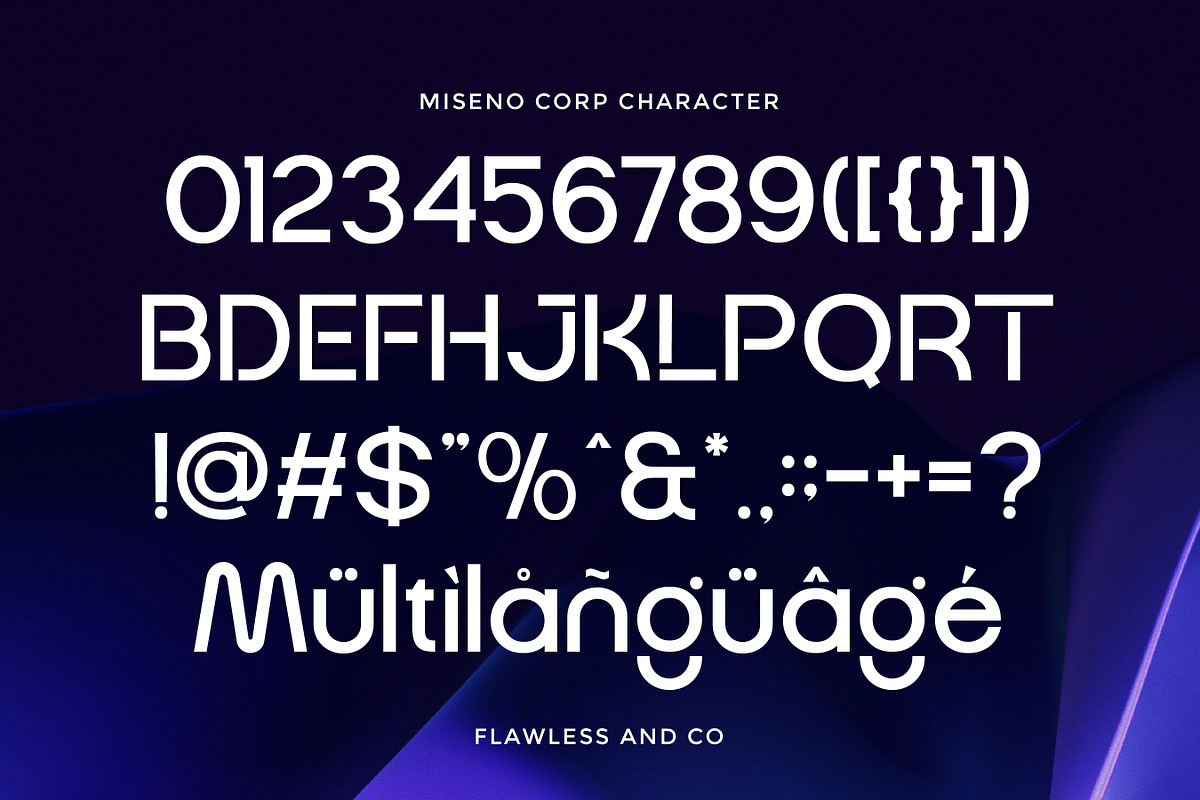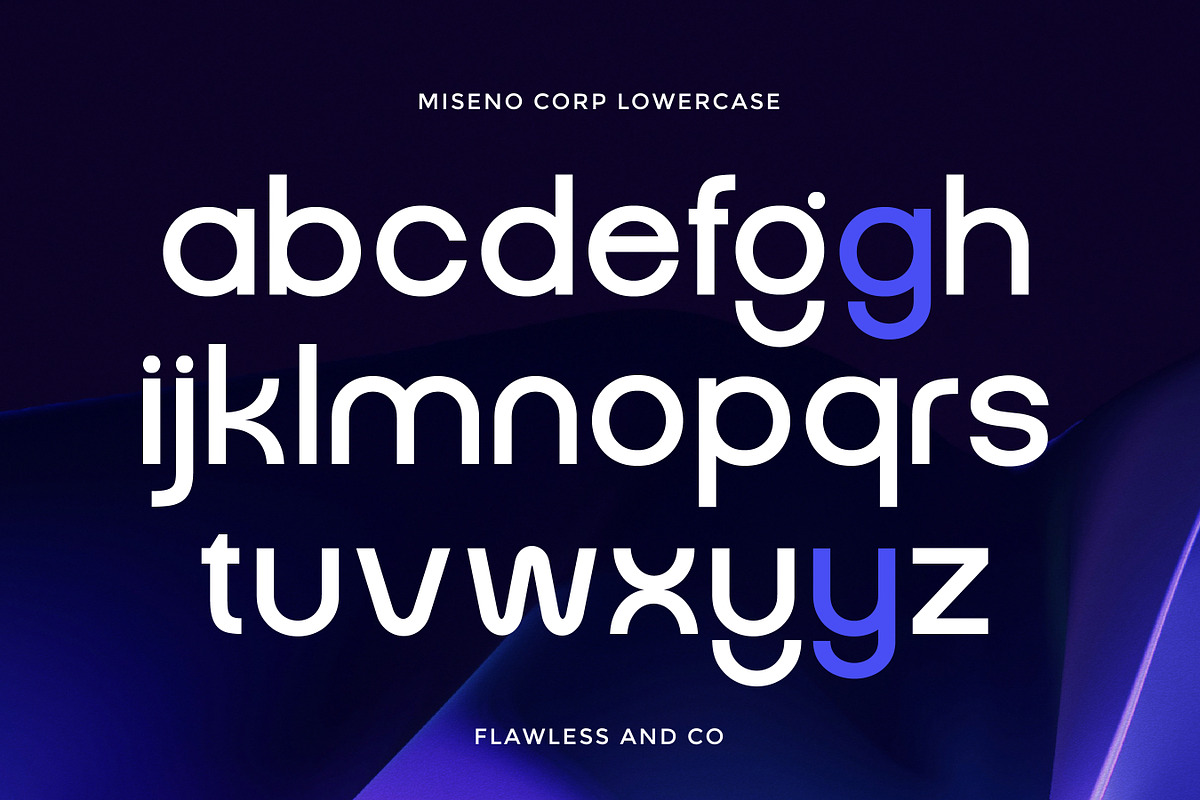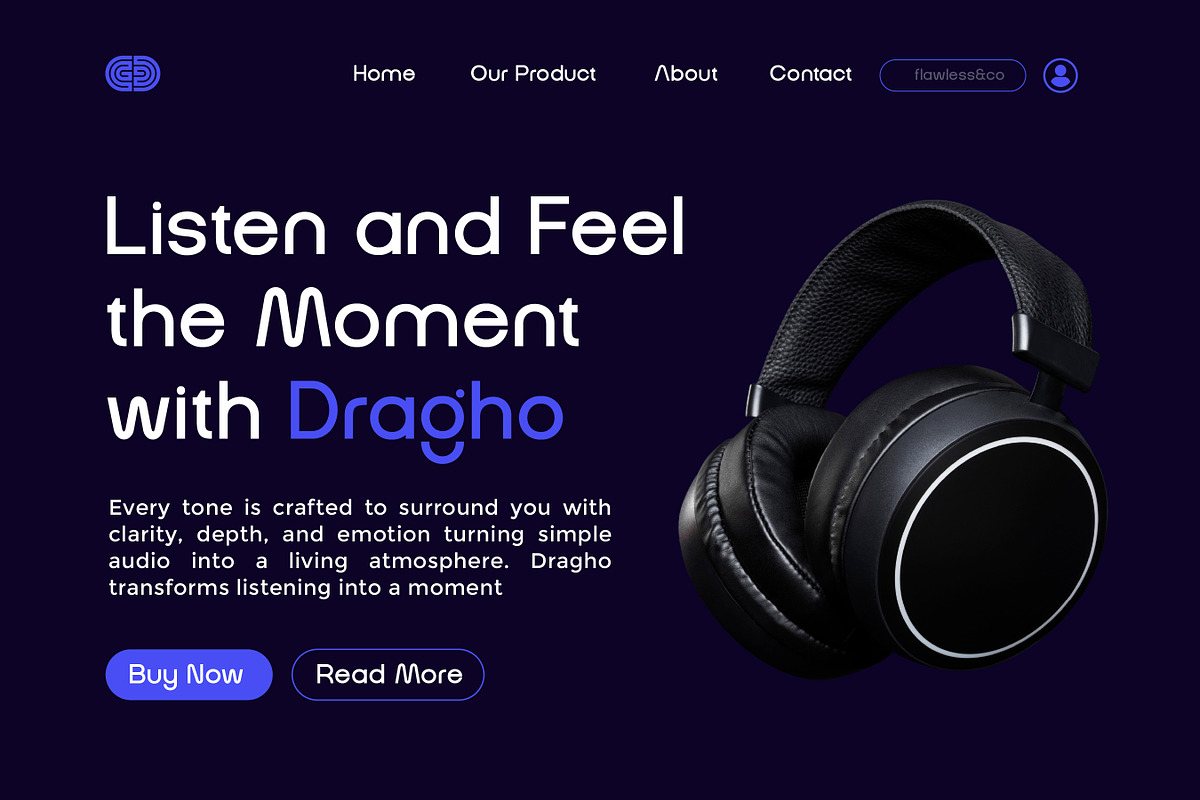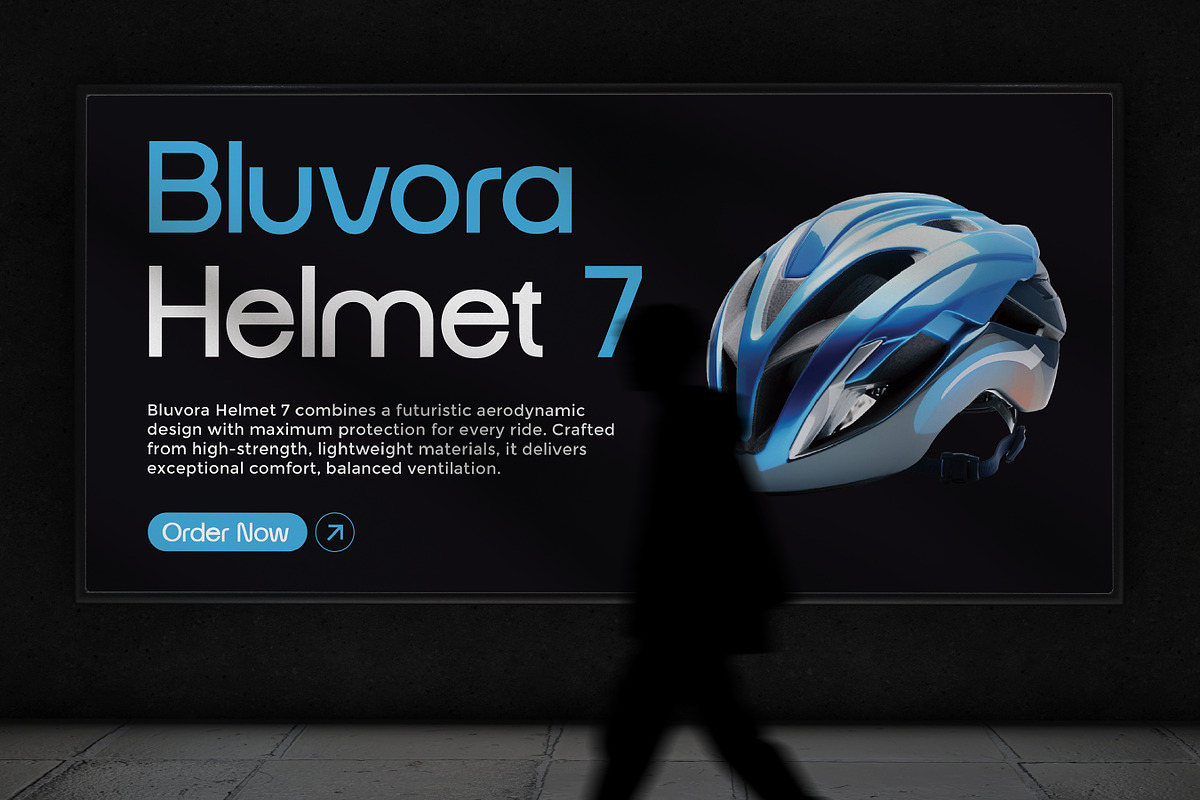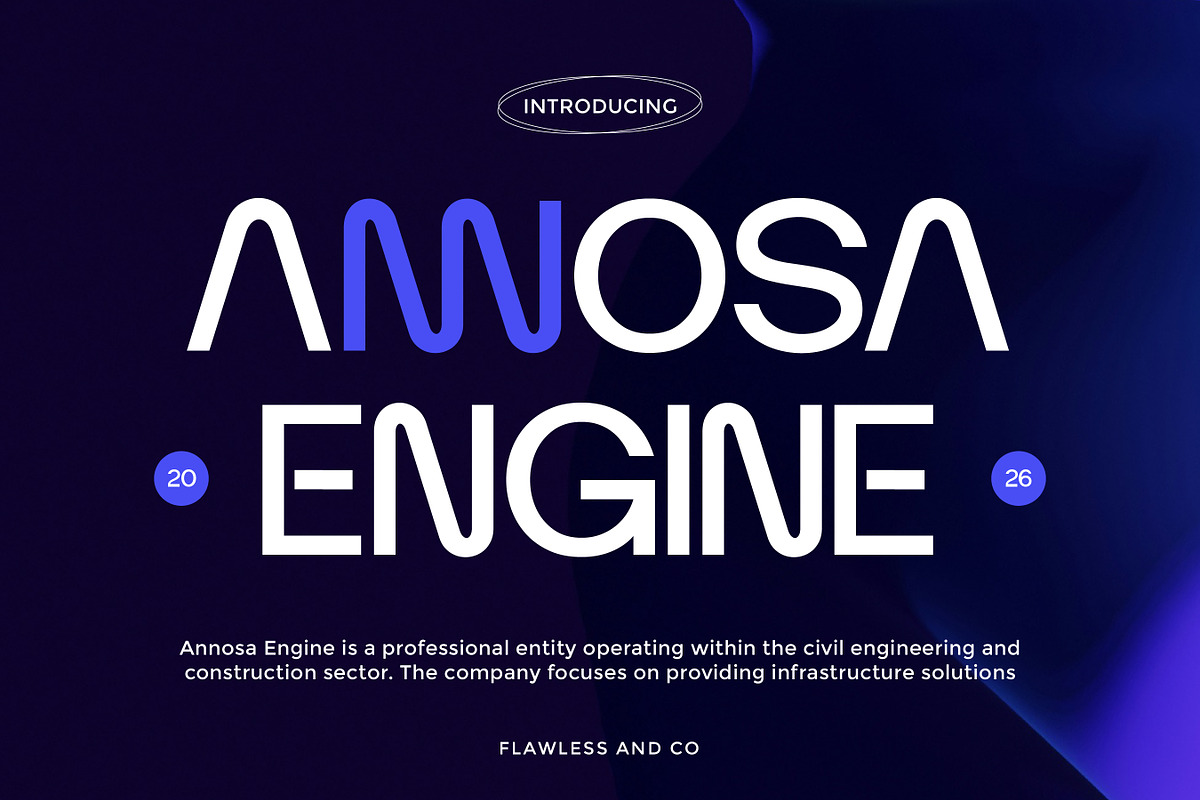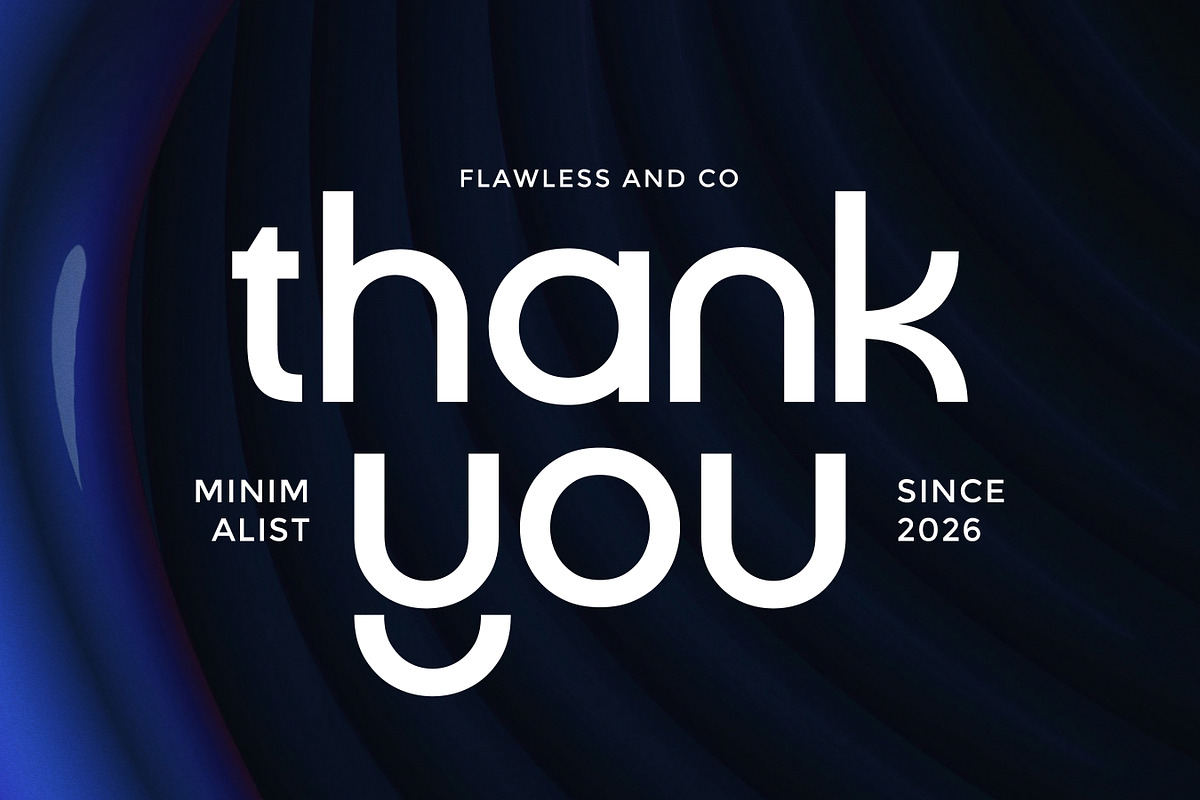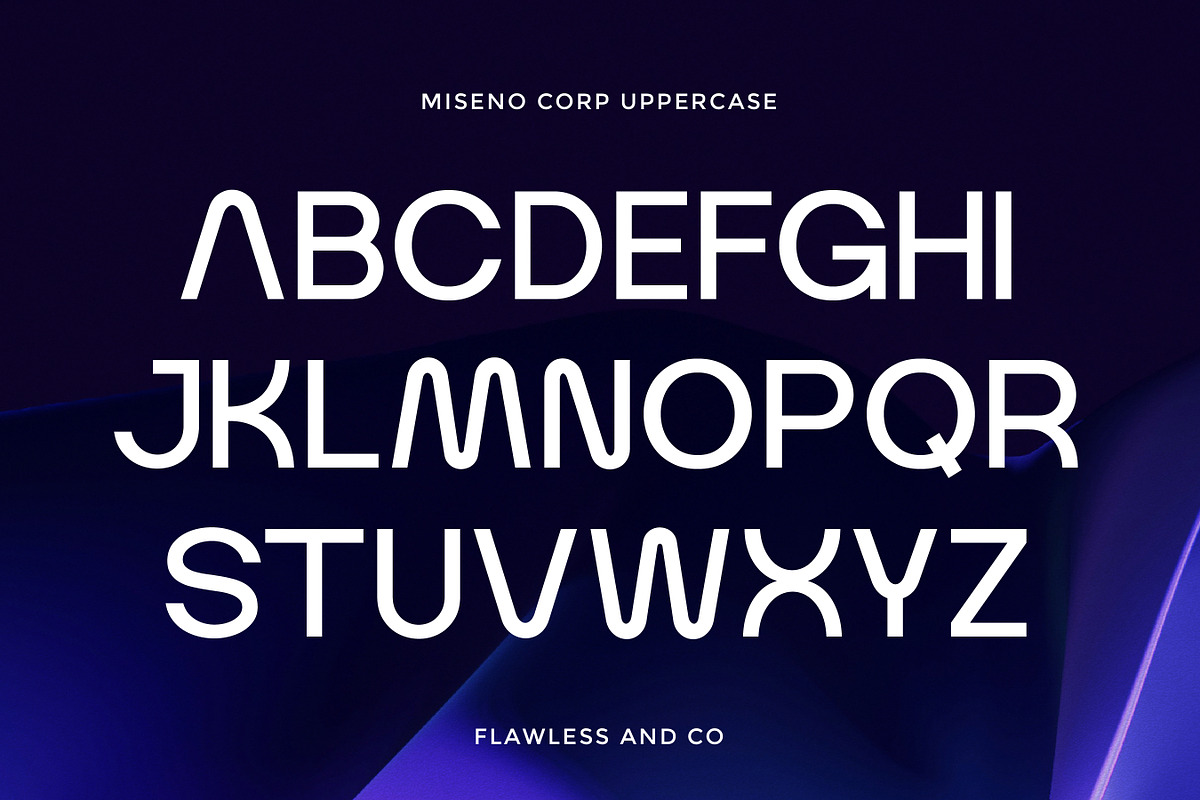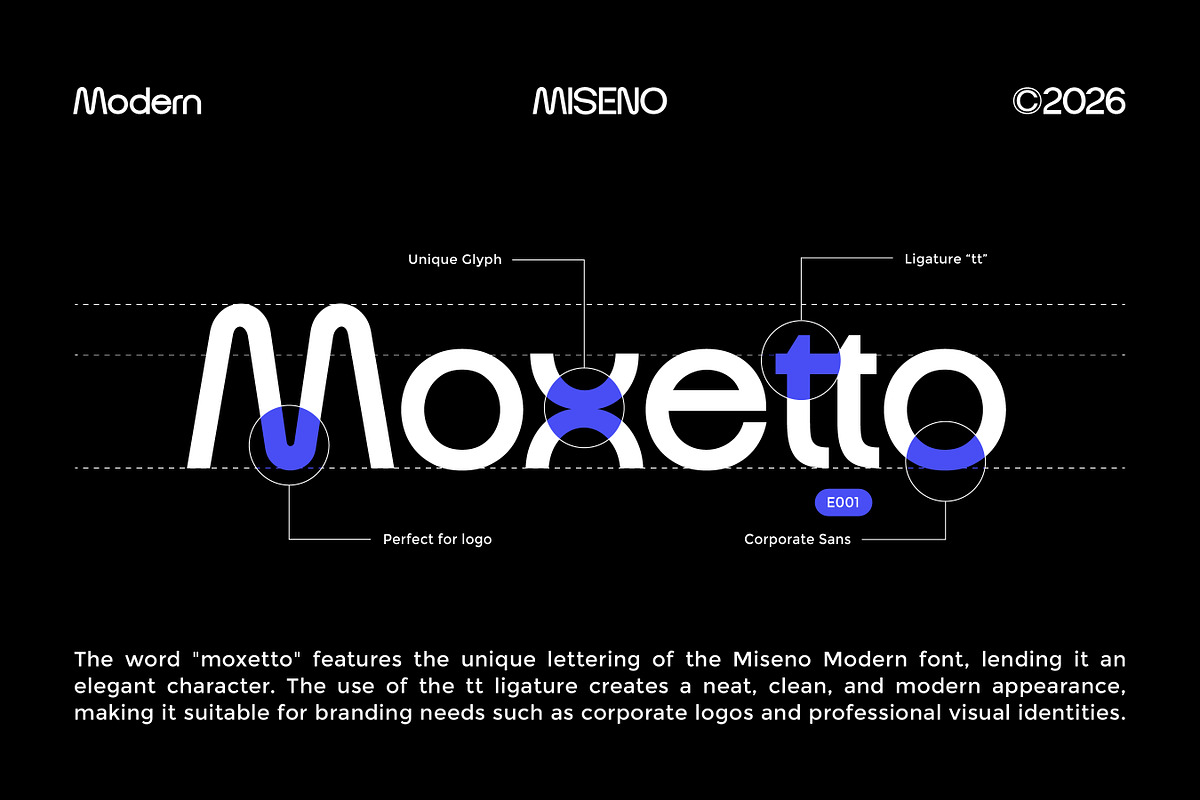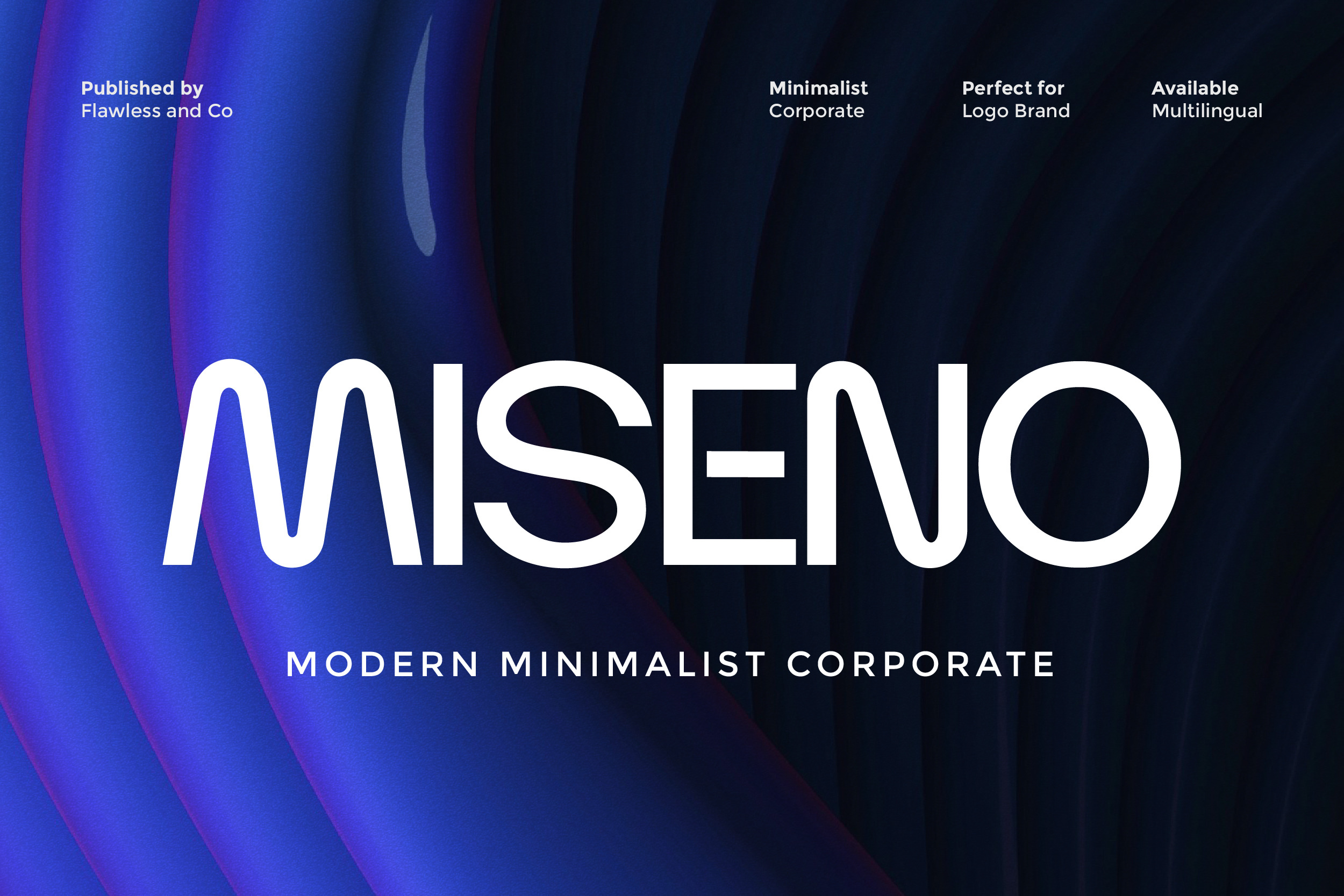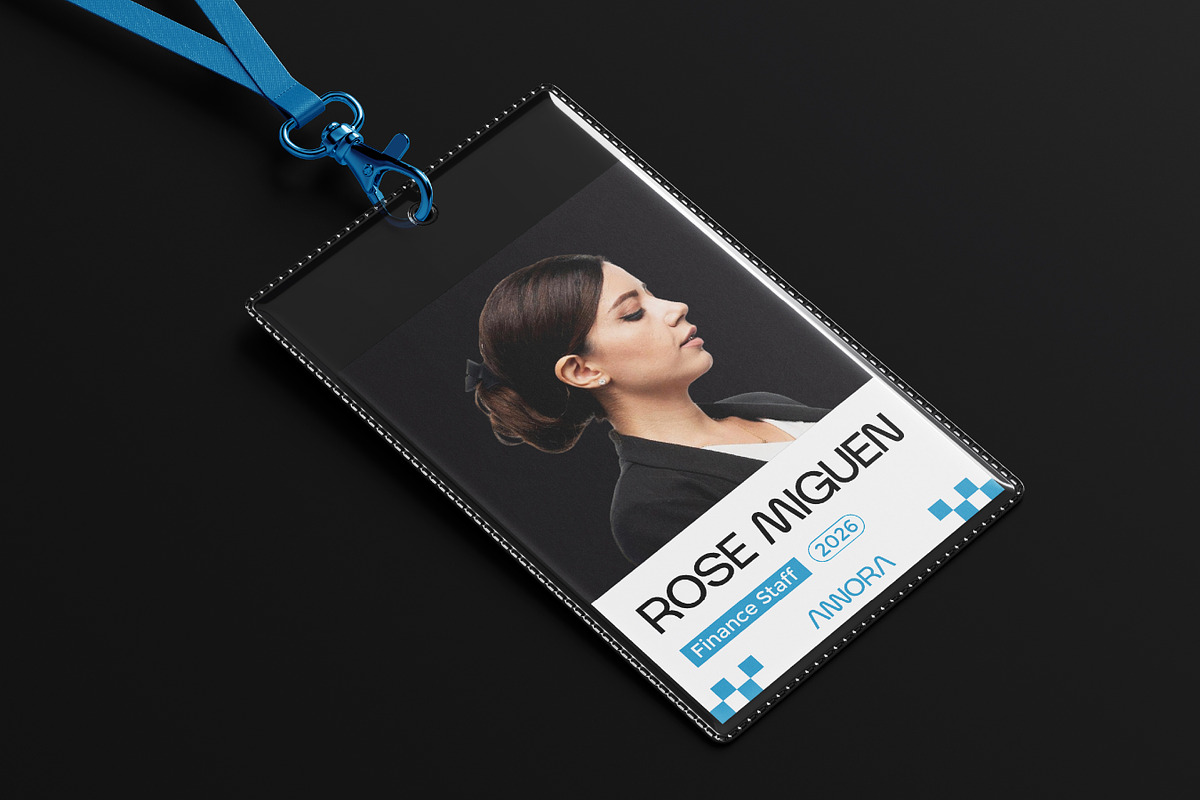
Miseno - Corporate Sans Serif Font
Miseno – Minimalist and Modern Corporate Sans Serif
Miseno is a minimalist and modern corporate sans serif font crafted to deliver a clean, professional, and contemporary typographic style. With its simple yet refined letterforms, smooth curves, and balanced structure, Miseno brings clarity and elegance to modern business and branding designs. Whether used for corporate branding, digital interfaces, or marketing materials, Miseno provides a strong and reliable typographic foundation that fits seamlessly across various design applications.
Who Should Use Miseno?
Miseno is ideal for designers, companies, startups, and professionals who want a modern and reliable typeface that reflects professionalism, simplicity, and strong brand identity.
Suitable For:
- Corporate branding and identity
- Business presentations and reports
- Modern logo design
- Website and UI/UX design
- Editorial layouts and magazines
- Marketing and promotional materials
- Social media graphics
- Professional packaging and labels